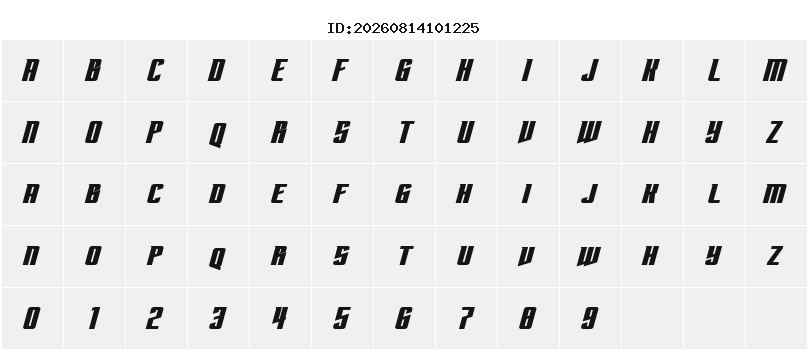
Subspace Preview
• Font Name: Subspace
• Font ID: Subspace Bold Italic:Version 1.00
• Full Font Name: Subspace Bold Italic
• Version: Version 1.00 May 19, 2016, initial release
• PostScript Name: Subspace-BoldItalic
• Character Count: 254
• Copyright: Suspace © (Neale Davidson). 2016. All Rights Reserved
• Designer: Neale Davidson
• Manufacturer: Pixel Sagas
About Subspace.otf
Subspace.otf is a modern, elegant sans-serif font designed for ultimate readability and visual harmony. Perfect for branding, headlines, web design, and print materials.